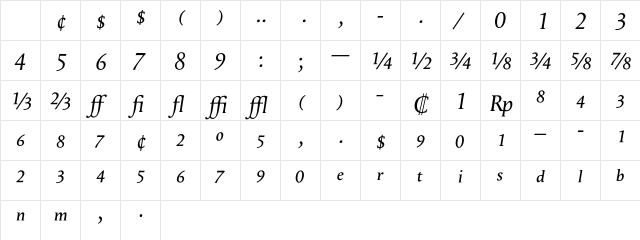
Complete ApollineExp Italic glyph index. Displaying only characters natively supported by ApollineExp Italic font.
ApollineExp is a composed and adaptable typeface that performs quietly and consistently across a wide range of design contexts. The slanted form adds forward momentum and visual energy.